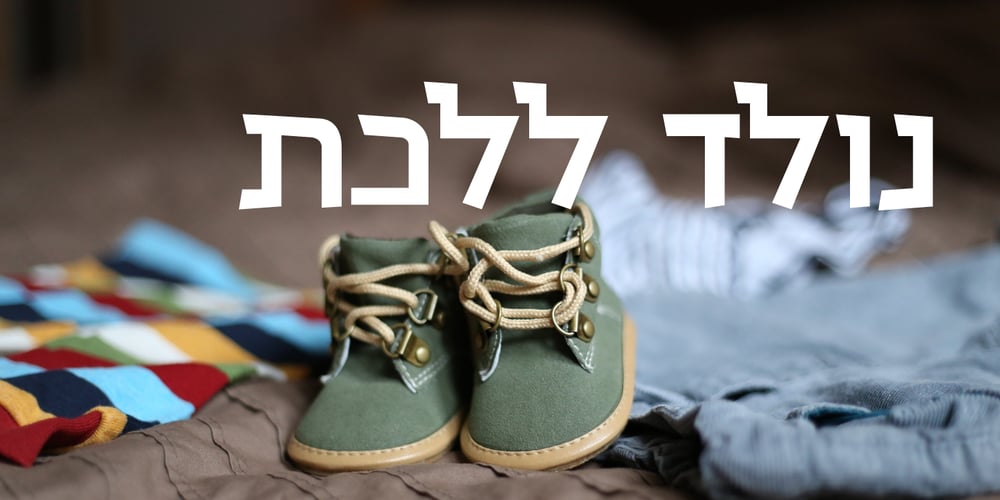
Hachraza MF
Hachraza MF font
Hachraza MF Font Family was designed by Zvika Rosenberg and published by Masterfont. Hachraza MF contains 1 styles and family package options. These are the letter forms from the famous monument in memory of the founders of the state of Israel.